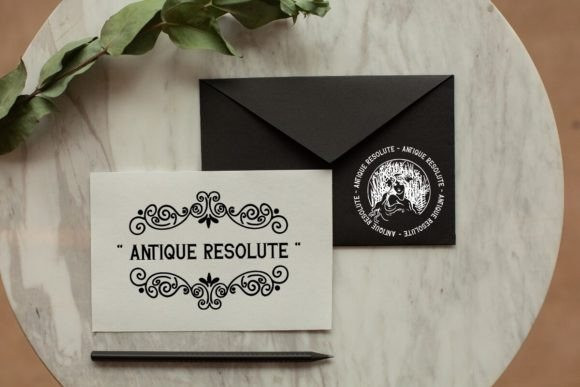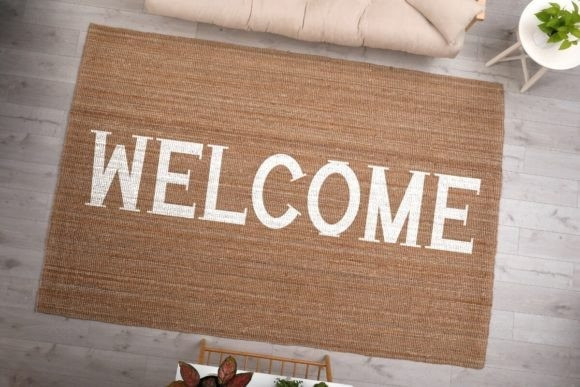
Antique Resolute Font
Antique Resolute Font feels playfully nostalgic and delivers an incredible vintage aesthetic. Use this slab serif font to add that special retro touch to any design idea you can think of!